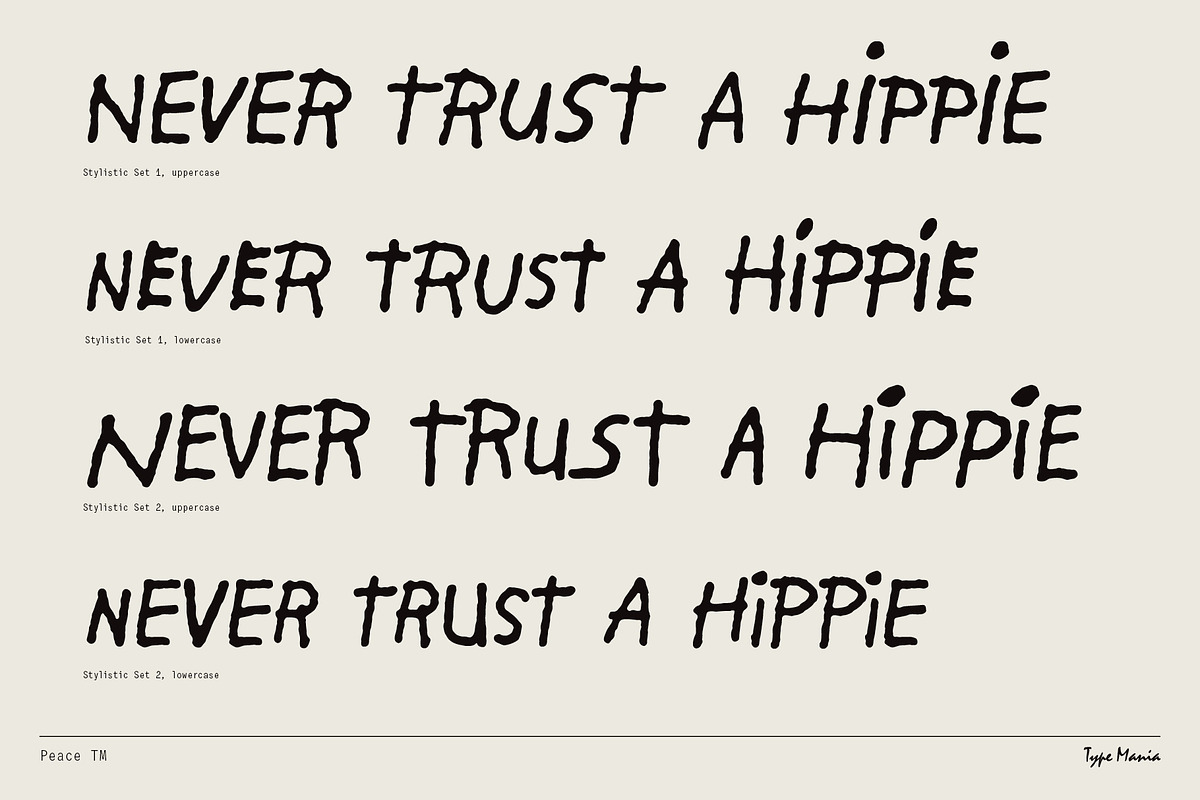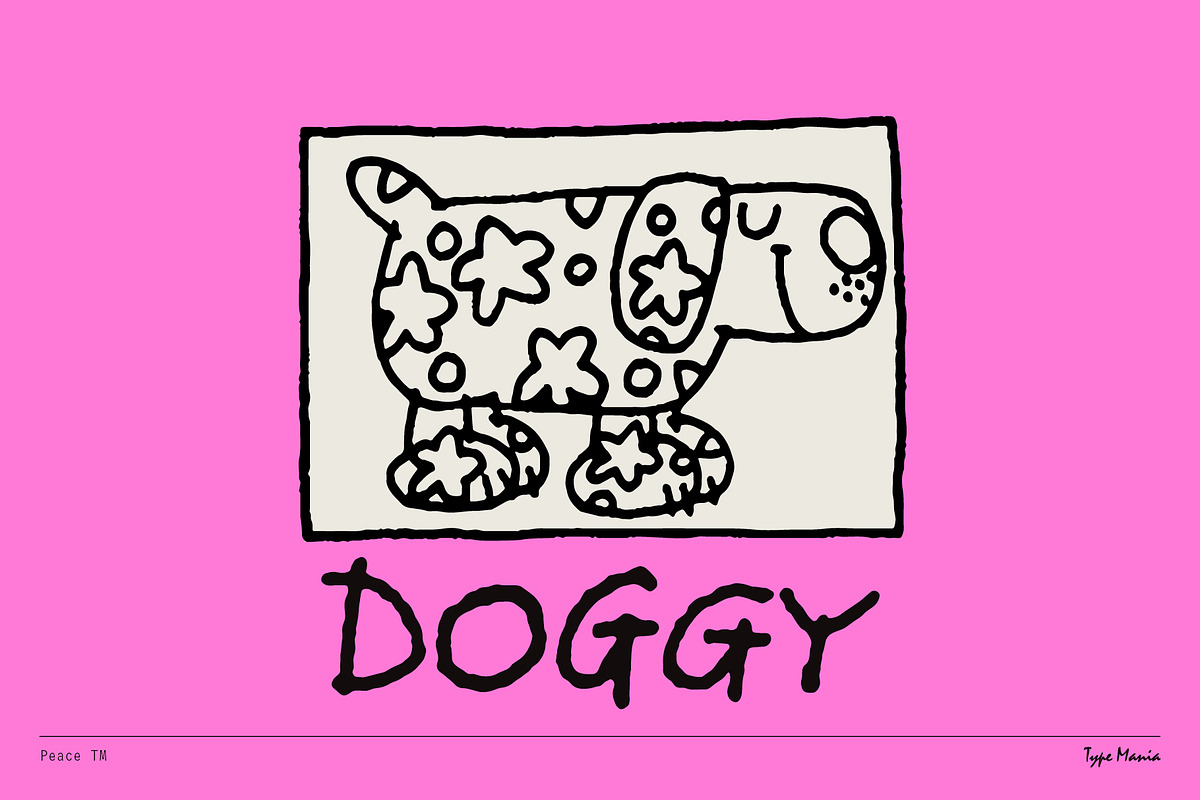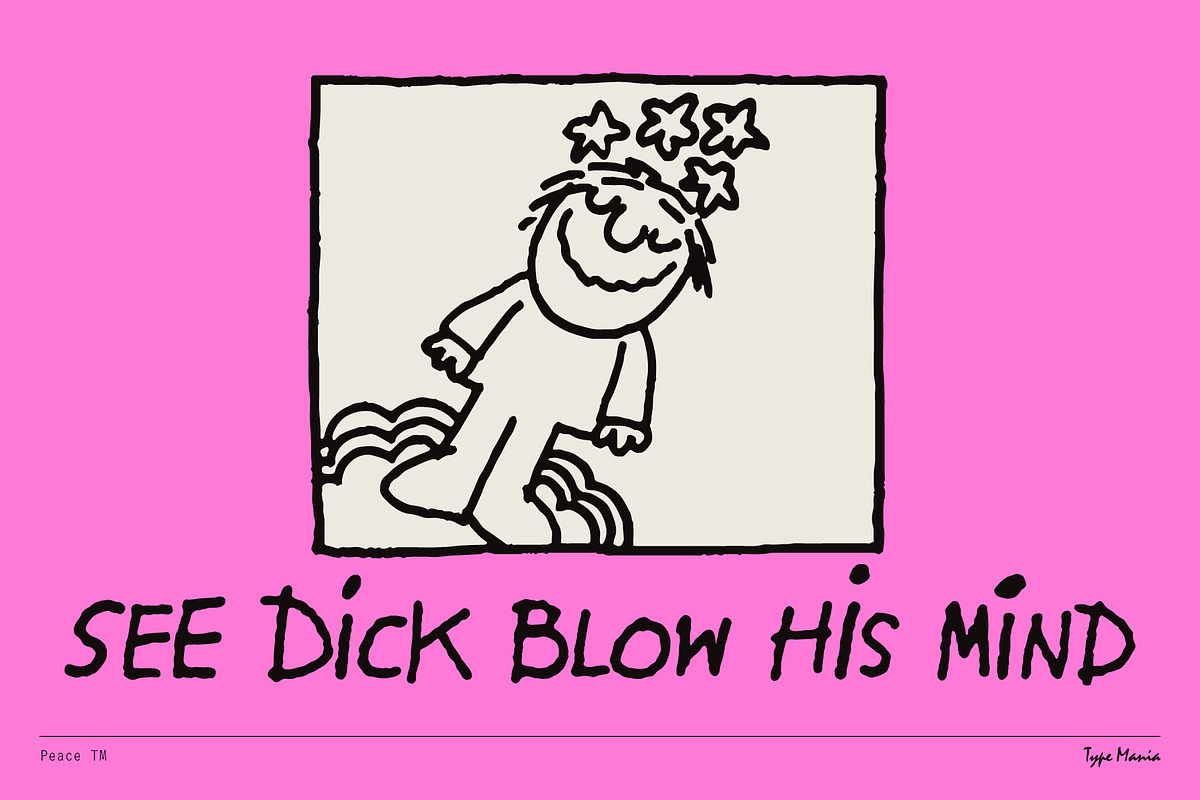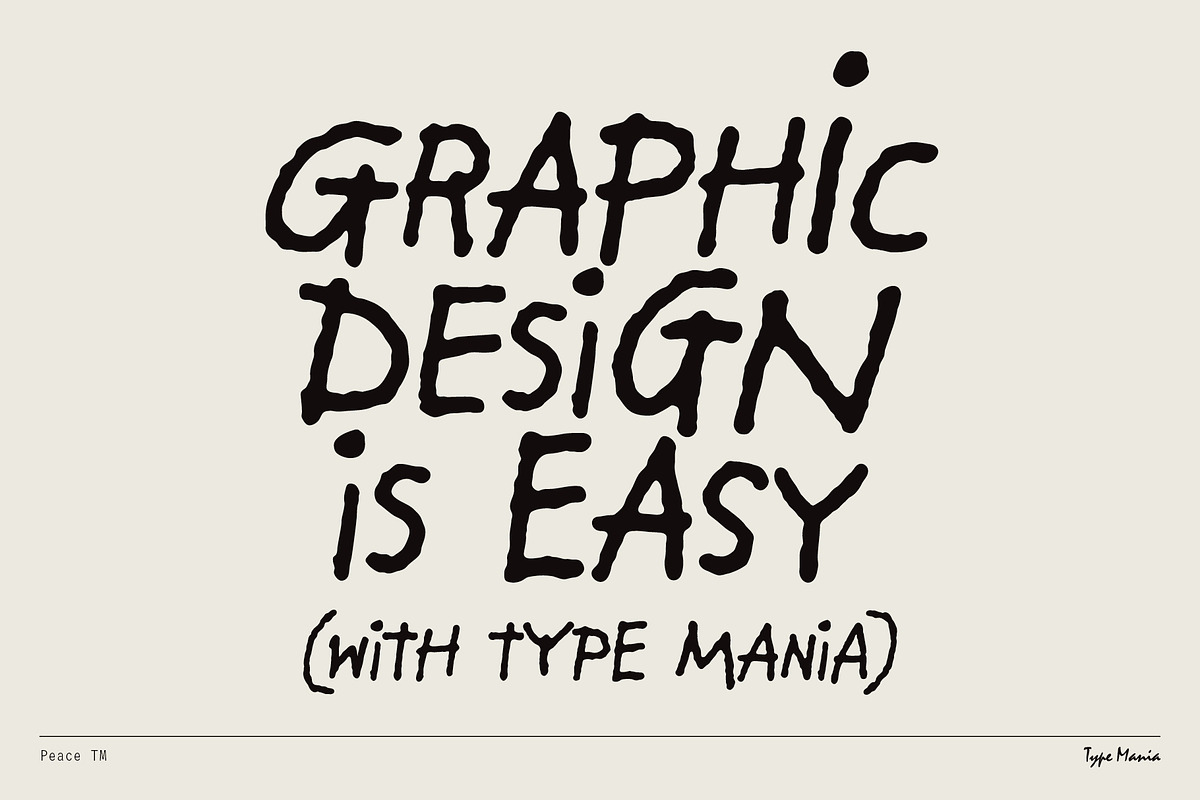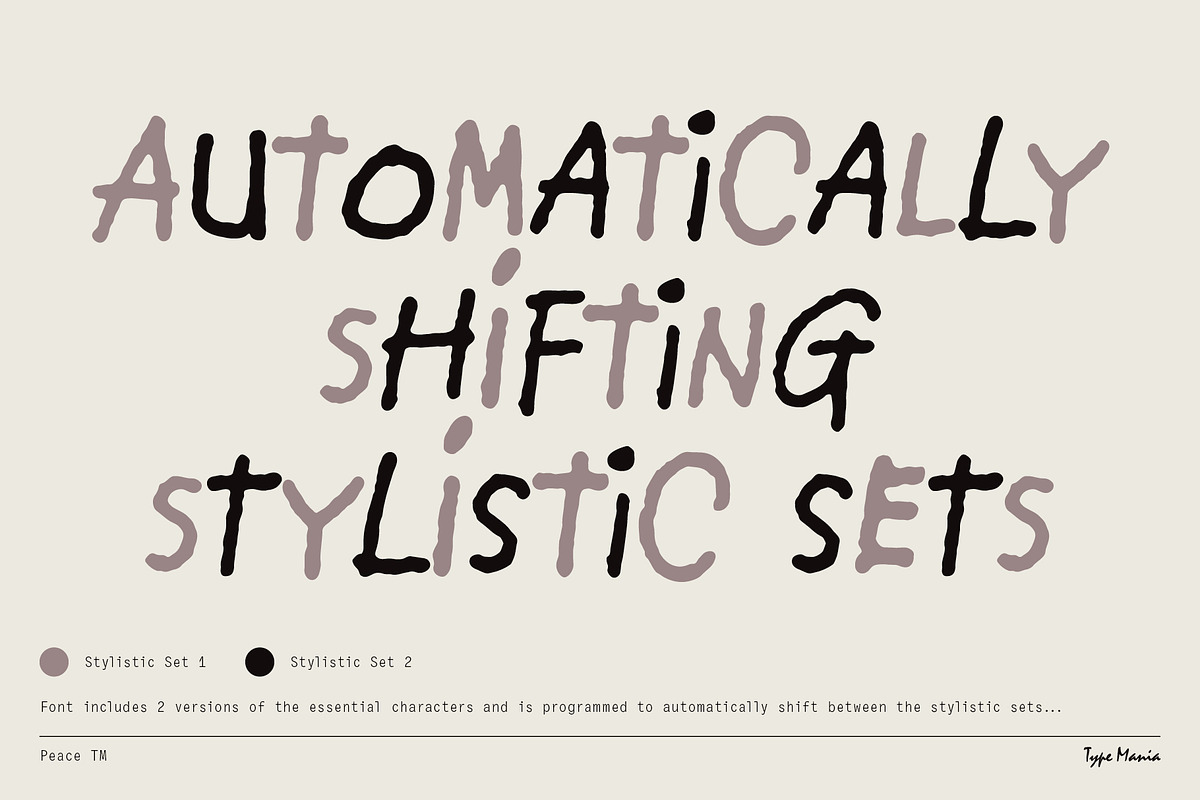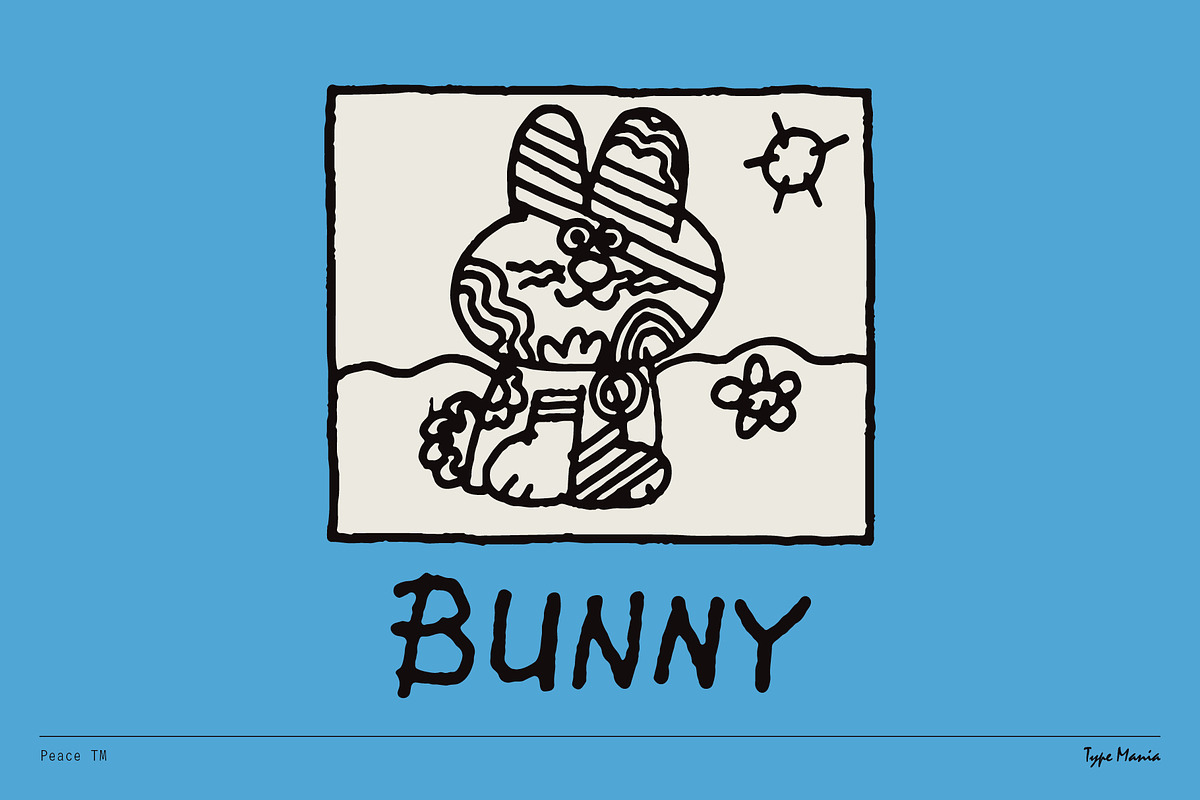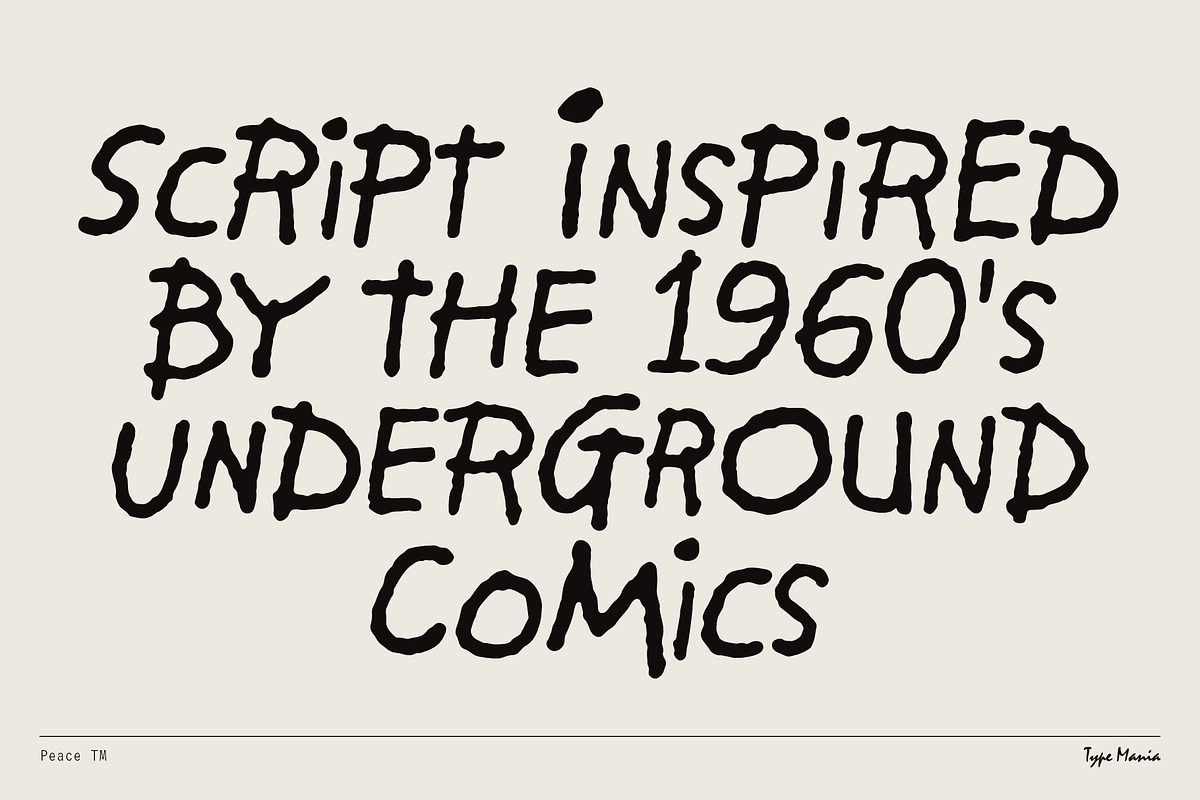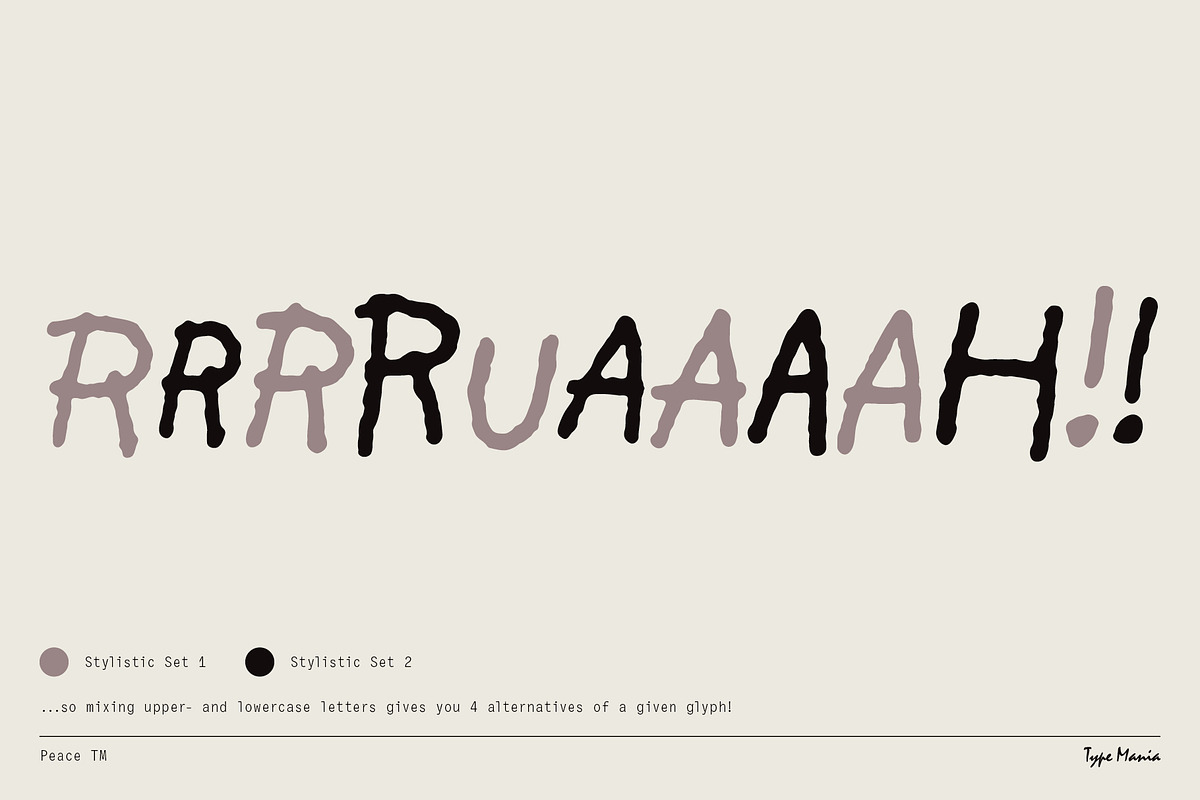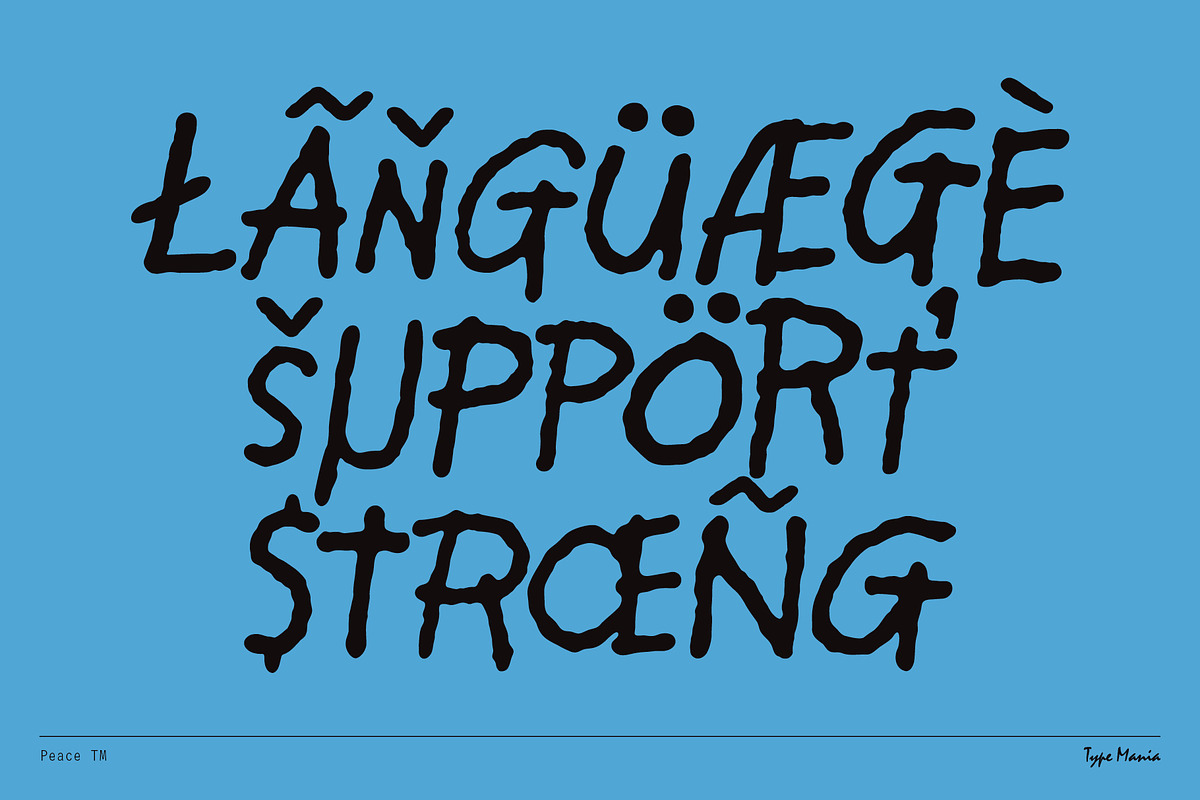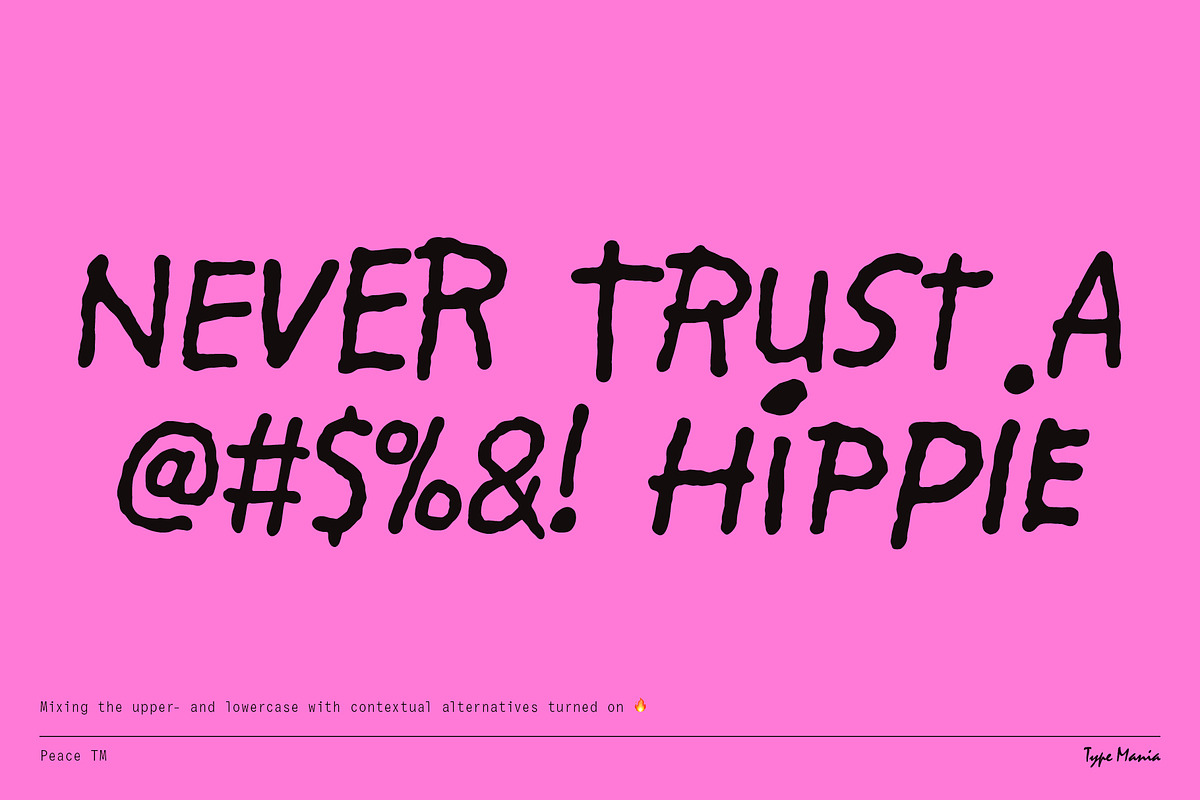
Peace TM – Automatic Script
Capture the restless spirit of the 1960s with Peace TM, a handwritten typeface inspired by the underground comics of the era. The font is programmed to automatically shift between the stylistic sets, making your layouts dynamic and interesting damn near automatic... Good for graphic designers, artists, and period esthetes, Peace TM adds a nice touch any project 👌
OpenType features
- 2 stylistic sets
- The font is programmed to automatically shift between the stylistic sets